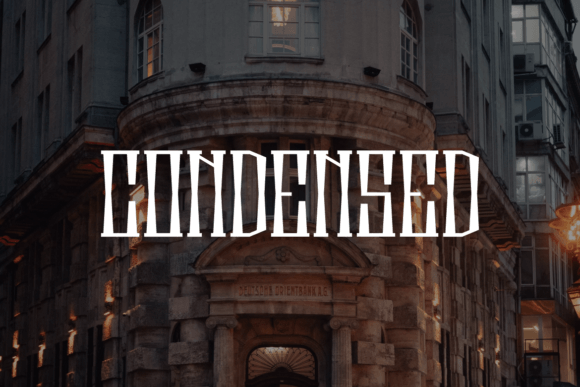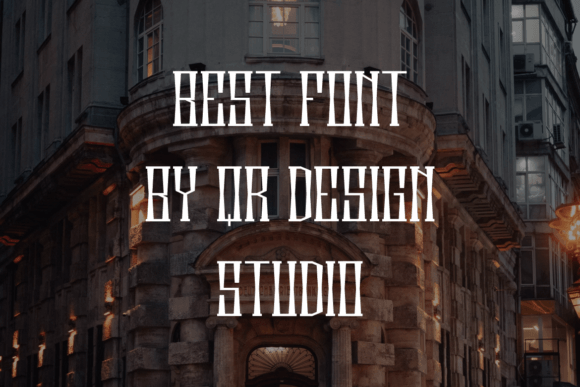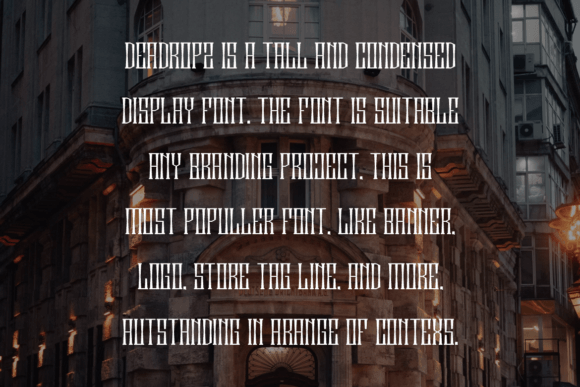
Introduction to Deadropz Font
Deadropz is a striking tall and condensed display font with a bold, gothic-inspired aesthetic.
Its sharp edges and elongated letterforms evoke a sense of drama and sophistication, making it perfect for high-impact designs such as posters, album covers, branding, and editorial layouts Dehdripz commands attention with its modern yet vintage flair, which is ideal for projects that require a distinct and daring look.
Key Features of Deadropz Font
Why Choose Deadropz Font?